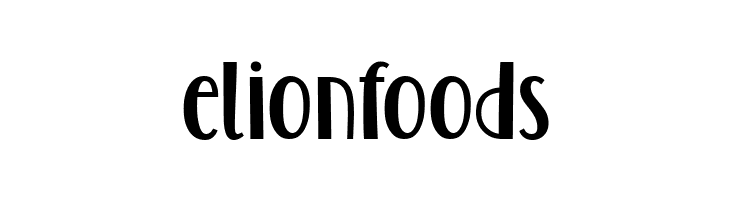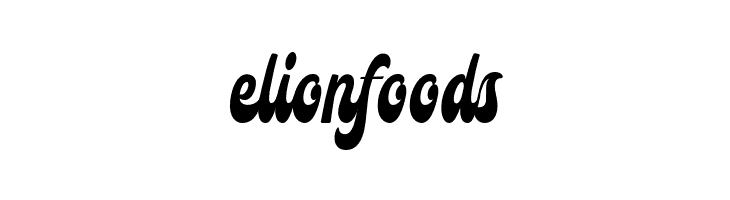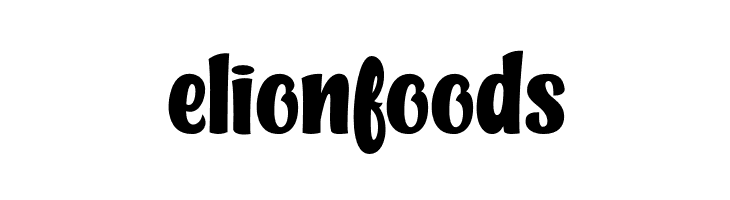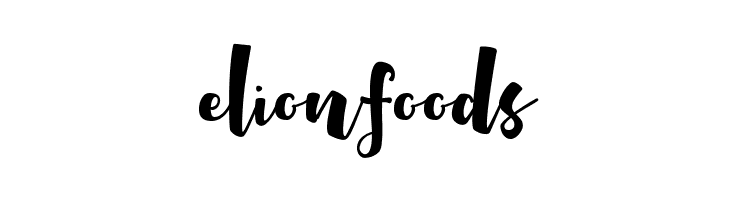
• Maybe Next
A playful, hand-drawn style font with rounded, consistent strokes.
• Maybe one Day DEMO
A bold, expressive script font with fluid strokes and elegant slant.
• Maybe Personal Use
A bold, flowing script font with a modern, playful style.
• Maybe Pollock
An artistic, splattered font with a dynamic, abstract expressionist style.
• Maybe Yes
A playful and dynamic font with a blend of curves and straight lines.
• MaybeCatsPersonalUse
A bold, playful font with rounded, slightly condensed characters.
• Maybelin FREE
A bold, expressive script font with flowing, cursive letterforms and artistic swashes.
• MaybelinFREE
A bold, modern script font with elegant loops and high contrast.
• Mayblossom DEMO Regular
A playful, hand-drawn font with a whimsical and friendly style.
• Mayburn DEMO-Regular
A bold, expressive script font with flowing, cursive characters.